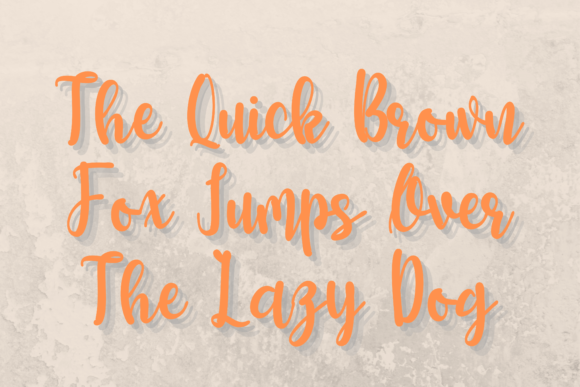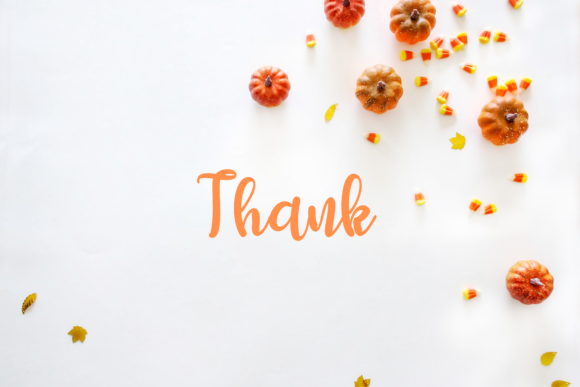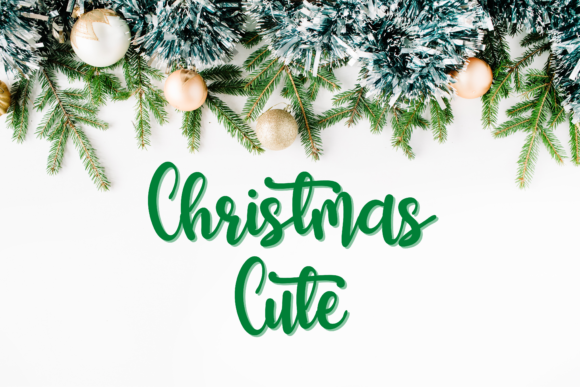
Christmas Cute Font: The Perfect Addition to Your Holiday Designs
Are you looking for a font that captures the essence of Christmas and adds a touch of cuteness to your designs? Look no further than the Christmas Cute Font! This charming font is perfect for designers and crafters who want to create festive and fun designs that showcase the magic of the holiday season.
What Makes Christmas Cute Font So Special?
Christmas Cute Font is a handwritten font that exudes a sense of charm and elegance. Its unique and playful design makes it perfect for a wide range of design projects, from wedding invitations and thank you cards to quotes, greeting cards, logos, and business cards. The font’s versatility and flexibility make it a must-have for any designer or crafter looking to add a personal touch to their work.
Characteristics of Christmas Cute Font
So, what makes Christmas Cute Font so special? Here are some of its key characteristics:
- Handwritten design: Christmas Cute Font has a beautiful, handwritten design that gives it a personal and unique touch.
- Playful and charming: The font’s playful and charming design makes it perfect for creating festive and fun designs.
- Versatile: Christmas Cute Font can be used for a wide range of design projects, from wedding invitations to business cards.
- Elegant: Despite its playful design, Christmas Cute Font also has an elegant and sophisticated feel that makes it perfect for more formal designs.
Uses for Christmas Cute Font
Christmas Cute Font is a versatile font that can be used for a wide range of design projects. Here are some ideas to get you started:
- Wedding invitations: Add a touch of elegance and whimsy to your wedding invitations with Christmas Cute Font.
- Thank you cards: Show your appreciation with beautifully designed thank you cards featuring Christmas Cute Font.
- Quotes: Create inspiring and fun quotes using Christmas Cute Font.
- Greeting cards: Design festive and fun greeting cards for any occasion using Christmas Cute Font.
- Logos: Use Christmas Cute Font to create a unique and memorable logo for your business or brand.
- Business cards: Add a personal touch to your business cards with Christmas Cute Font.
Why Designers and Crafters Love Christmas Cute Font
Designers and crafters love Christmas Cute Font for many reasons. Here are a few:
- Easy to use: Christmas Cute Font is easy to install and use, even for those who are new to design.
- High-quality design: The font’s high-quality design ensures that it looks great in any design project.
- Unique and playful: Christmas Cute Font’s unique and playful design makes it stand out from other fonts.
- Versatile: The font’s versatility makes it perfect for a wide range of design projects.
Christmas Cute Font is a must-have for designers and crafters who want to create festive and fun designs that showcase the magic of the holiday season. Its unique and playful design, versatility, and elegance make it perfect for a wide range of design projects. Whether you’re designing wedding invitations, thank you cards, or logos, Christmas Cute Font is the perfect addition to your design toolkit.